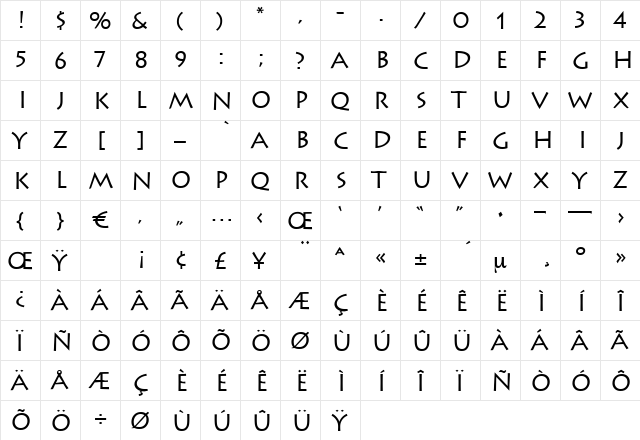
Krypta Regular
Design Context for Krypta Typeface
Krypta is a composed and adaptable typeface that performs quietly and consistently across a wide range of design contexts.